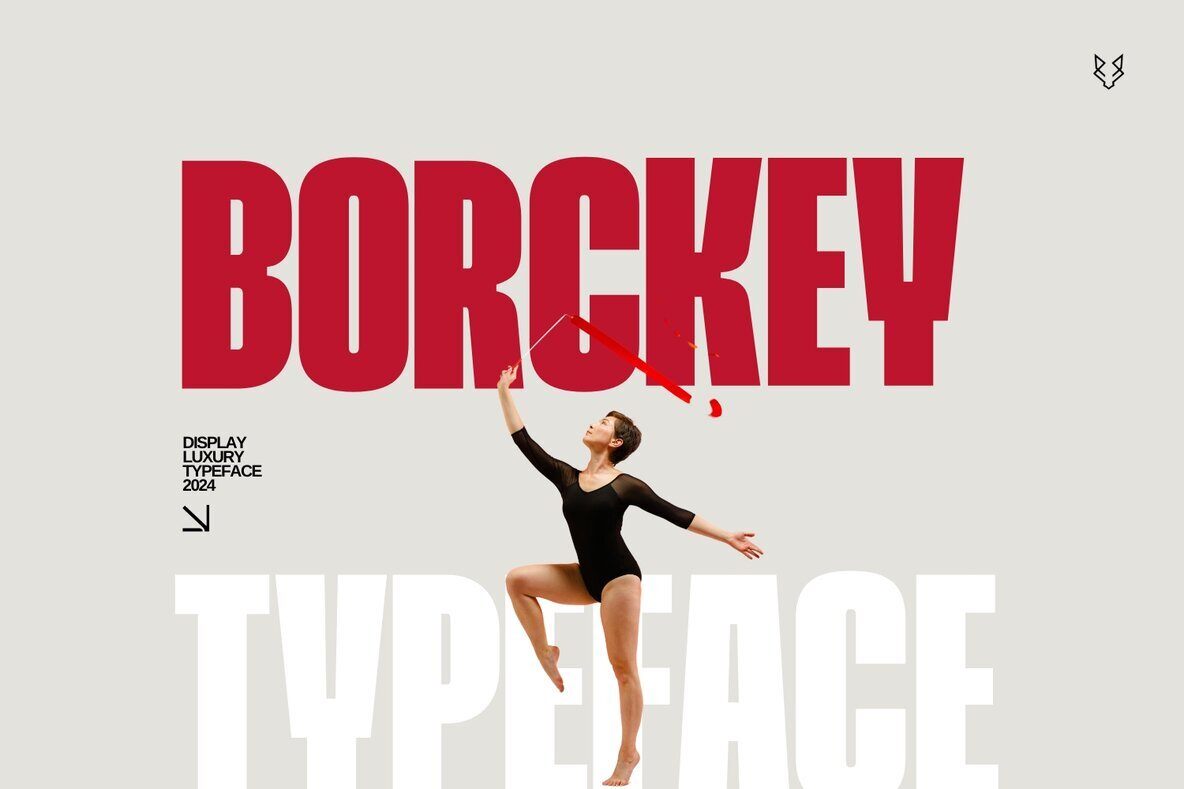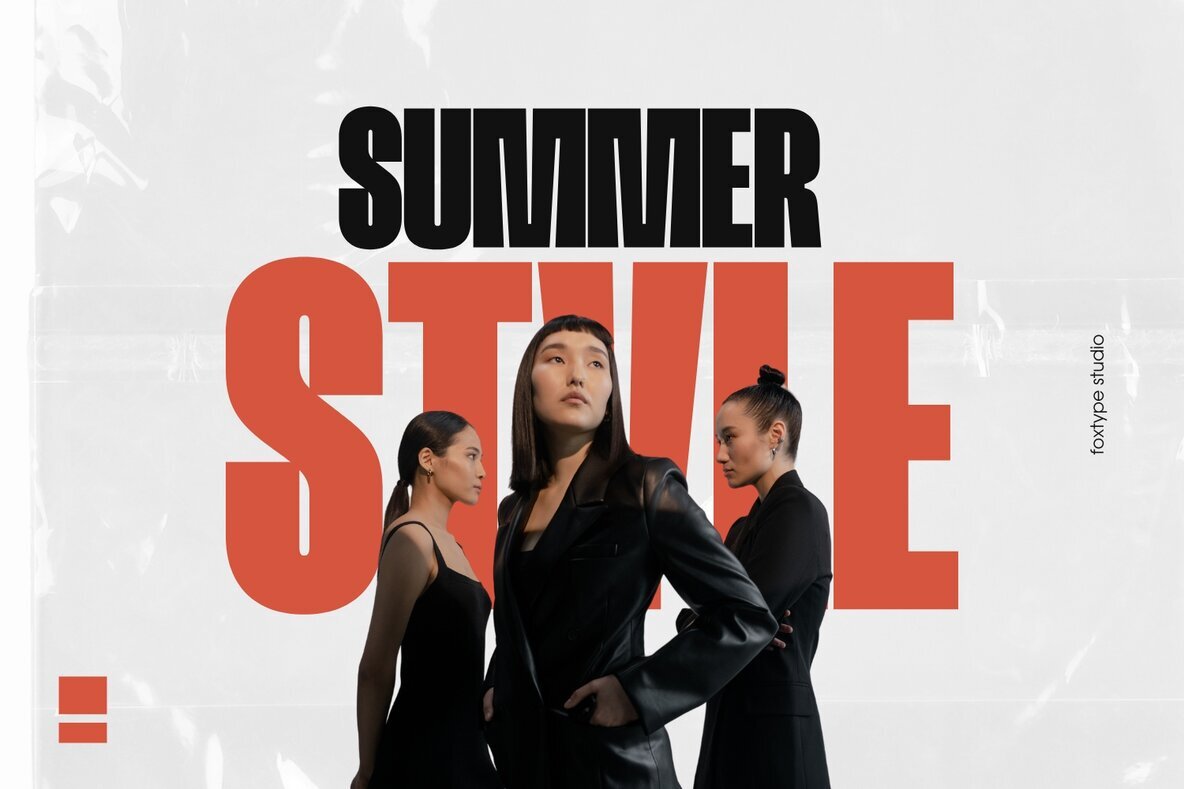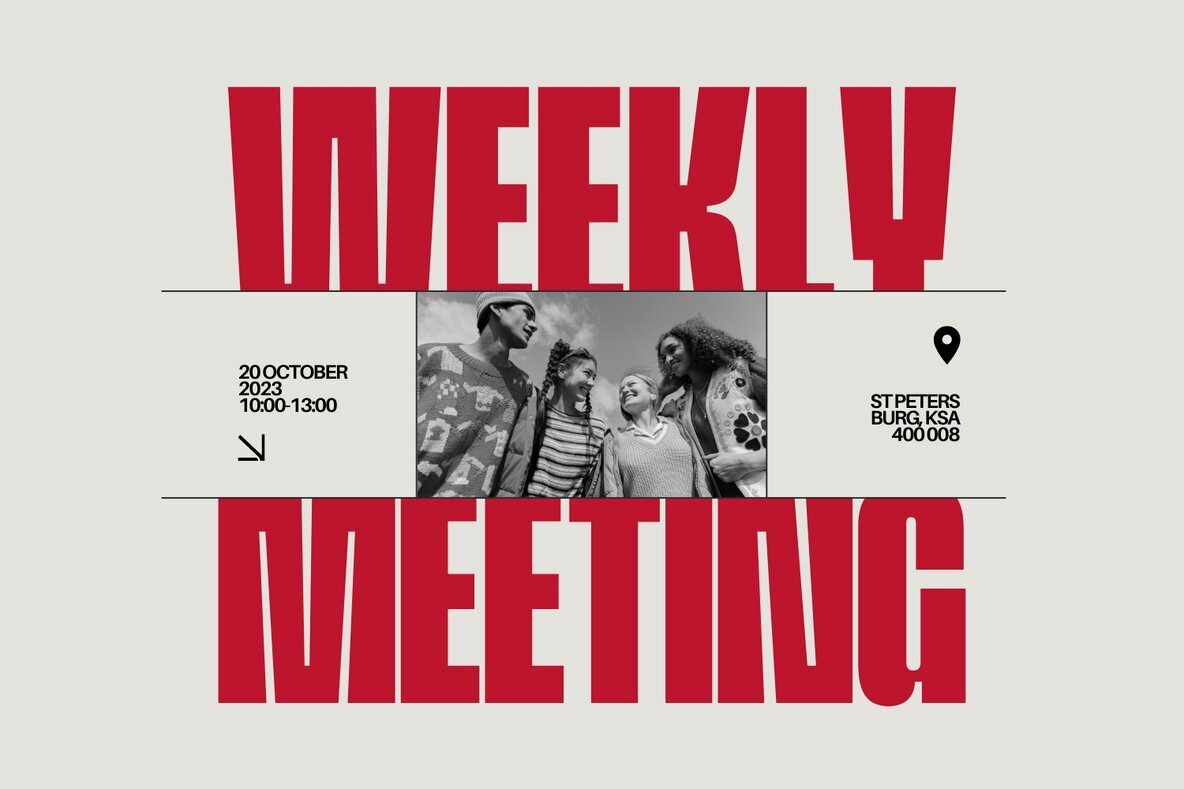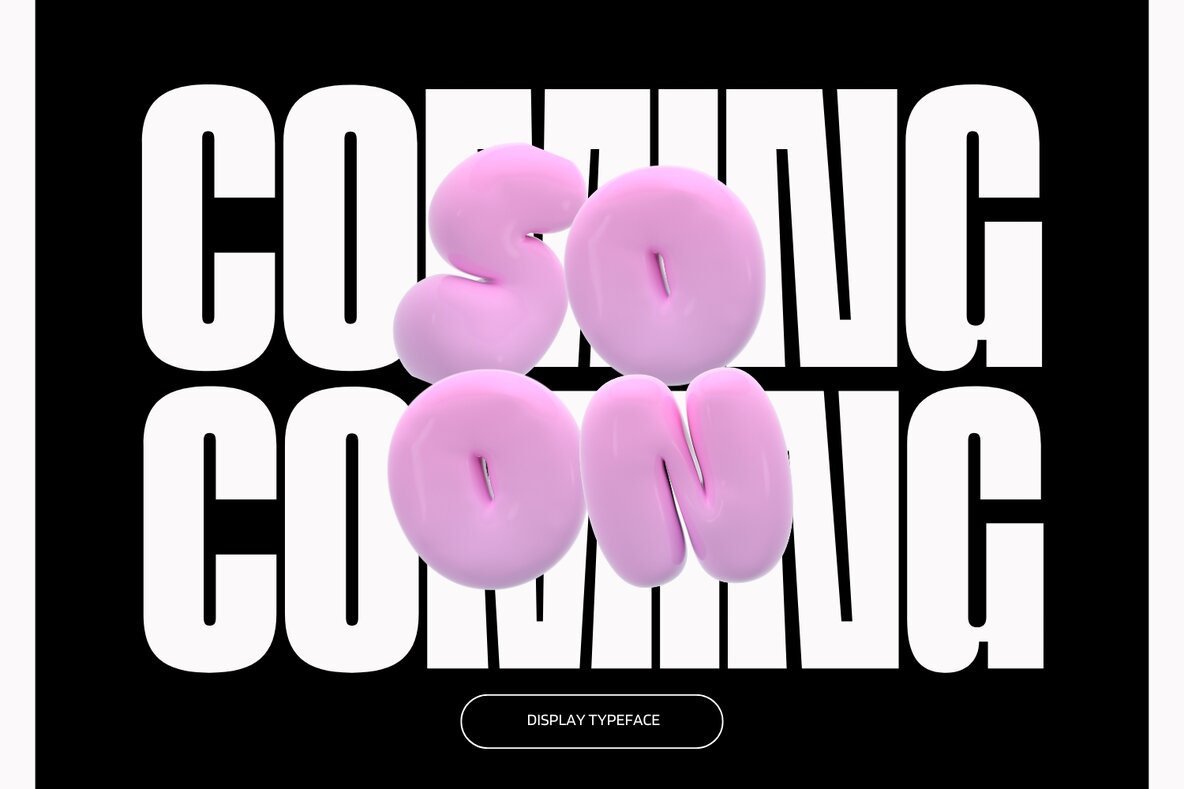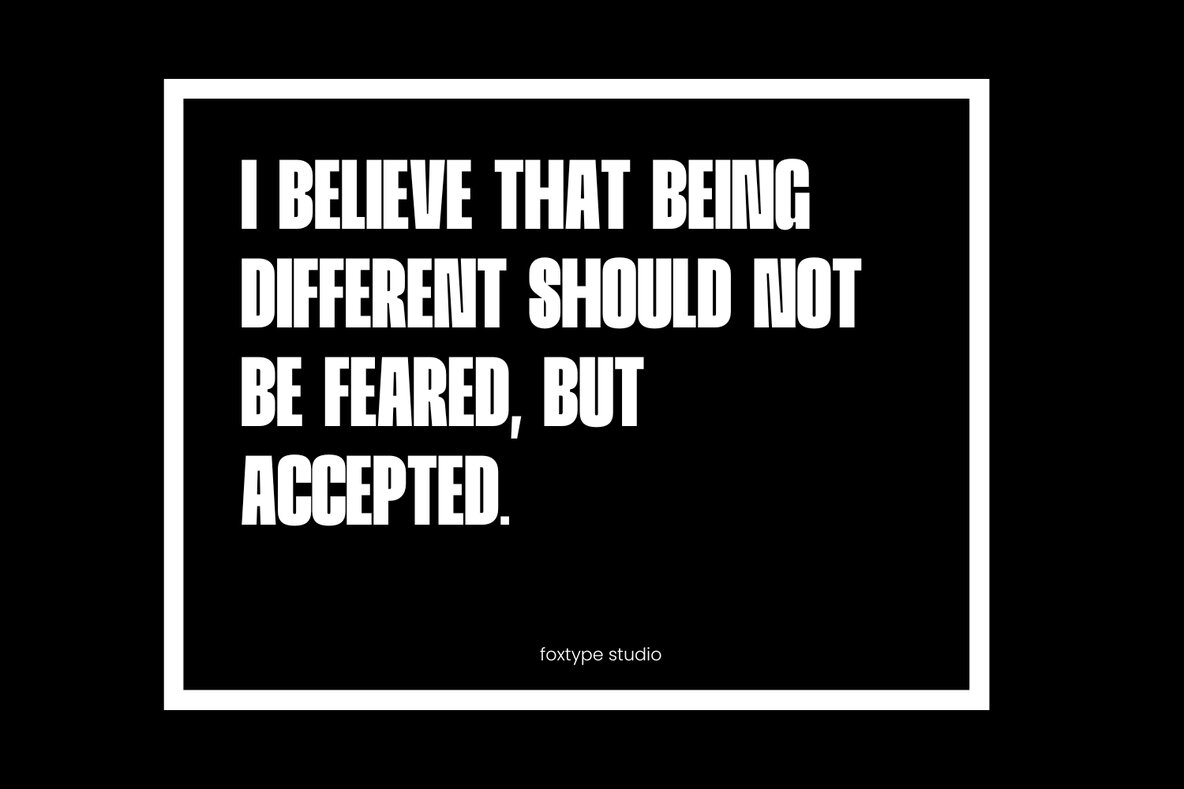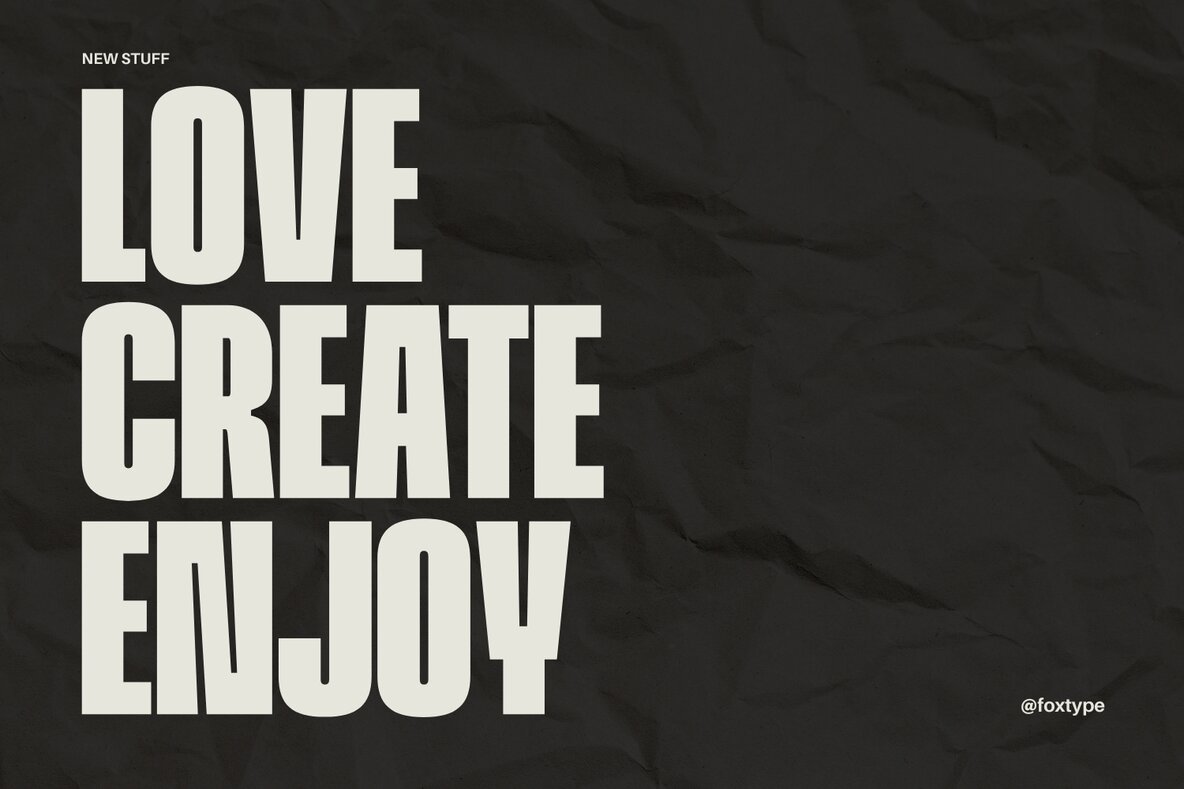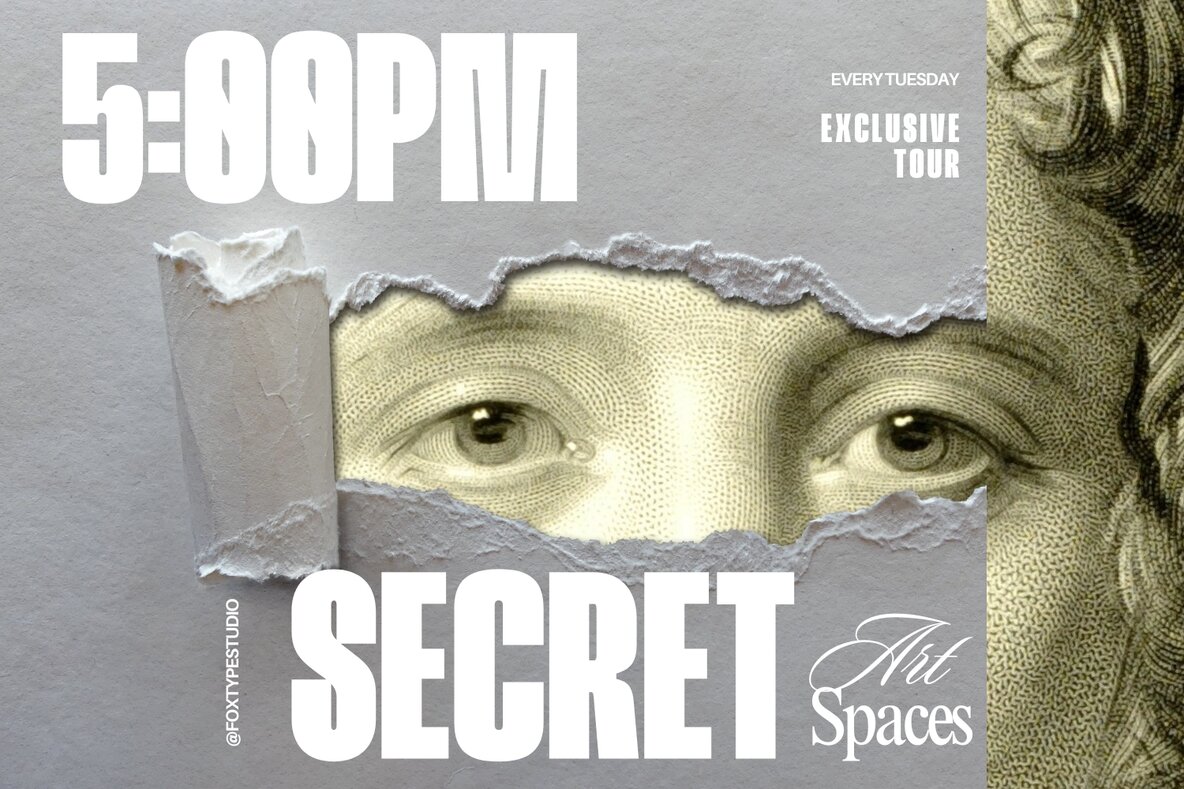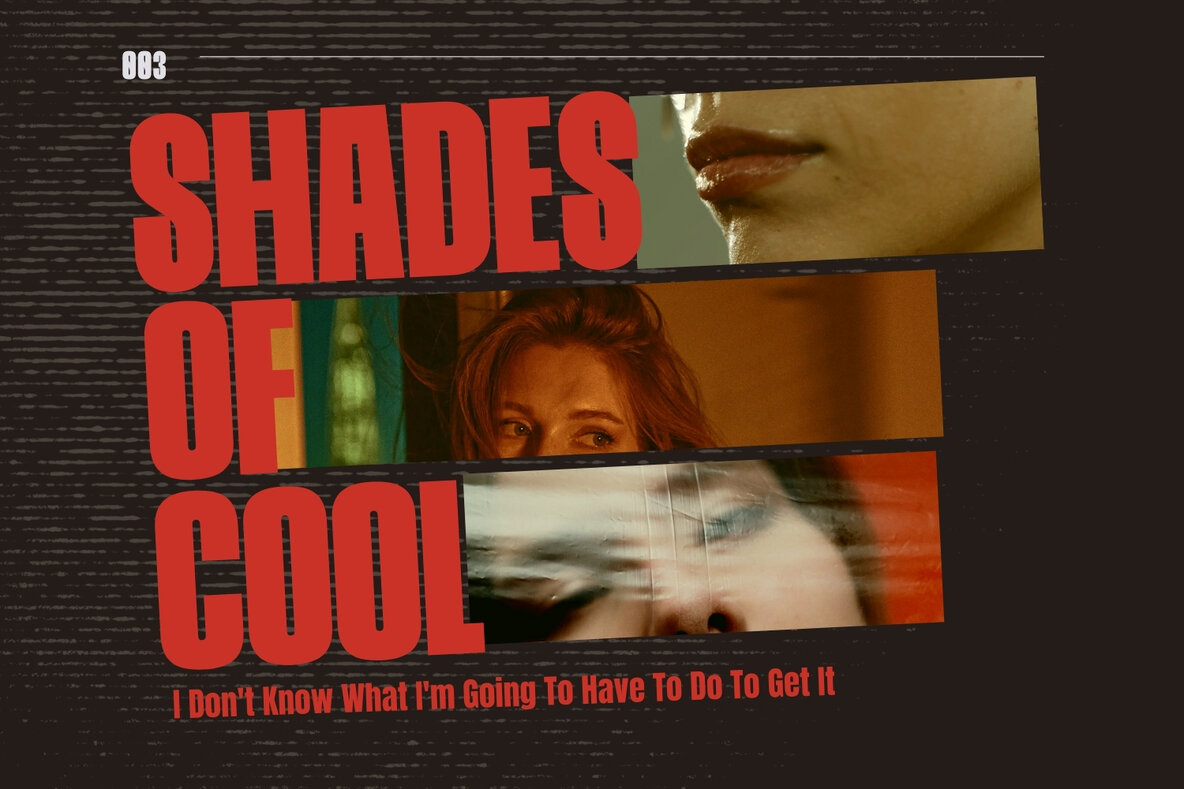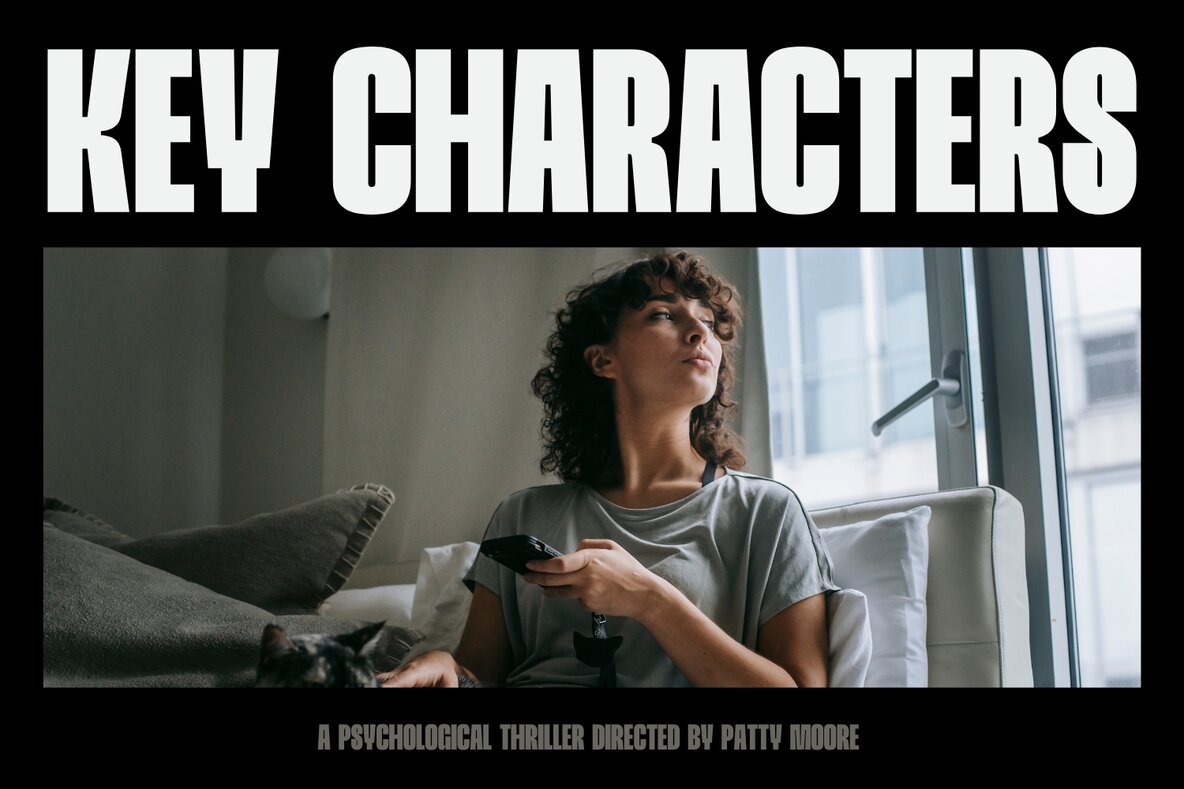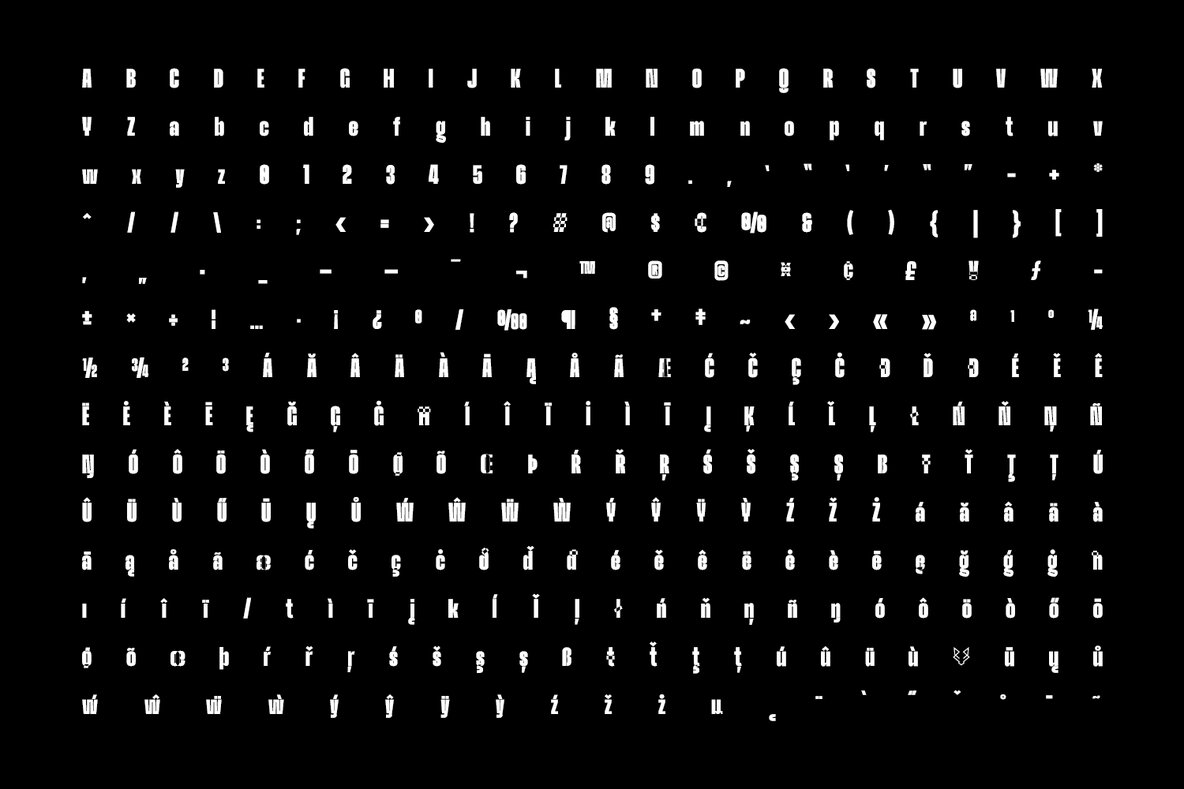
Borckey Display Font
Borckey Display Typeface Regular
Borckey Display is a meticulously crafted font designed to make a bold statement in your creative projects. Ideal for posters, magazine covers, and headlines, it brings a modern and dynamic touch to any design. Each character is carefully designed for clarity and visual appeal, ensuring your work stands out.
Whether creating eye-catching posters or striking magazine covers, Borckey Display offers versatility and impact. Transform your designs with its distinctive style, combining elegance and boldness seamlessly.